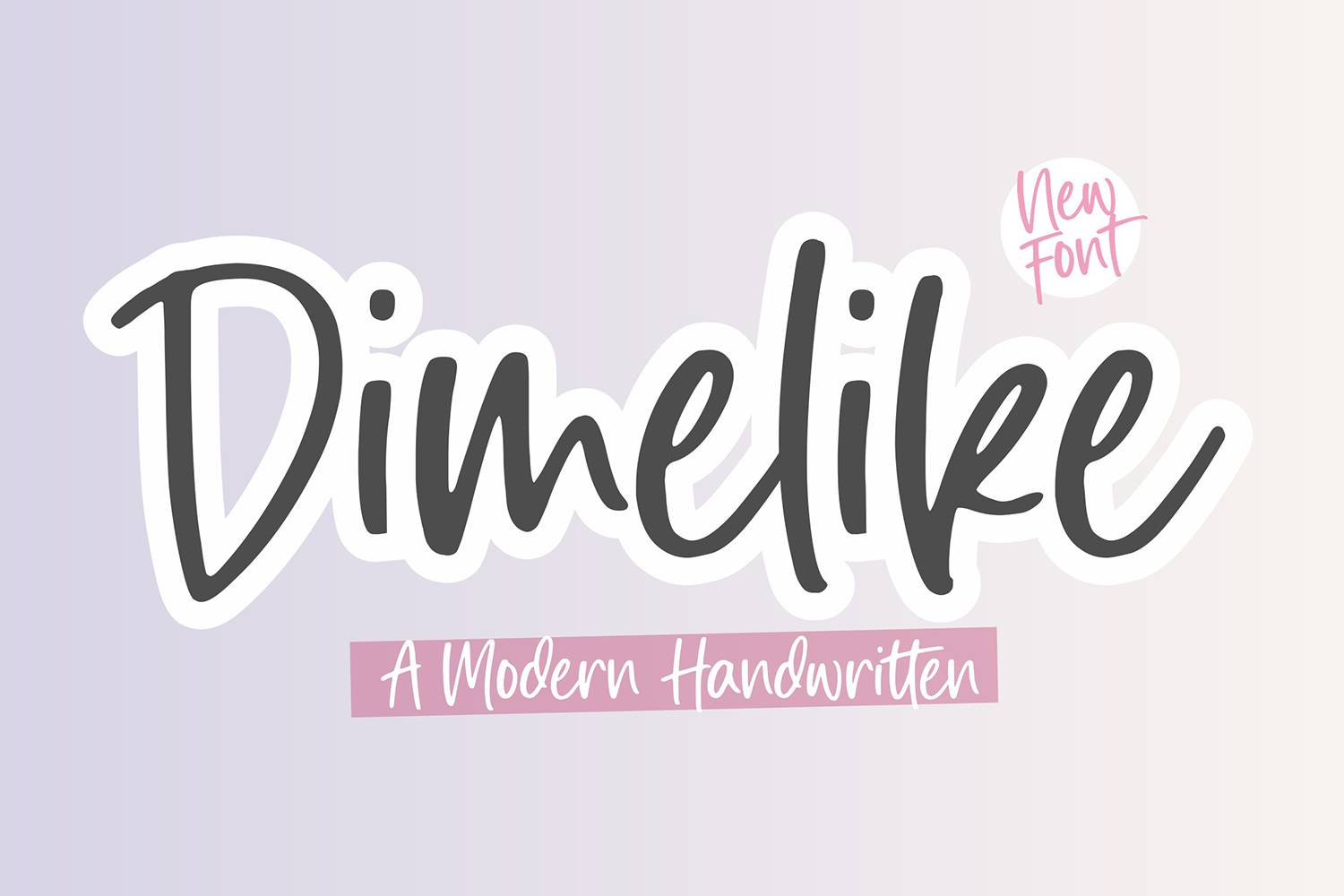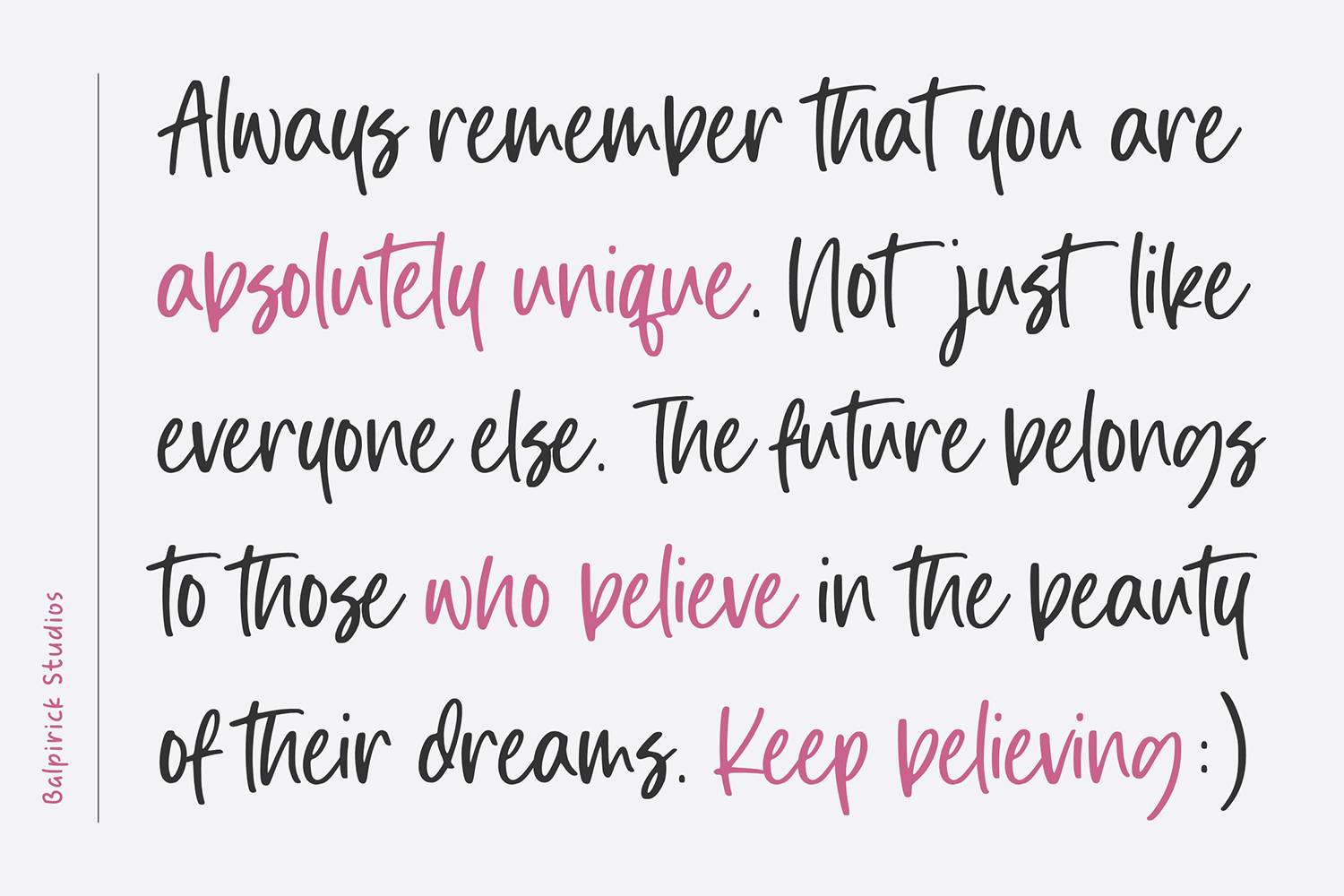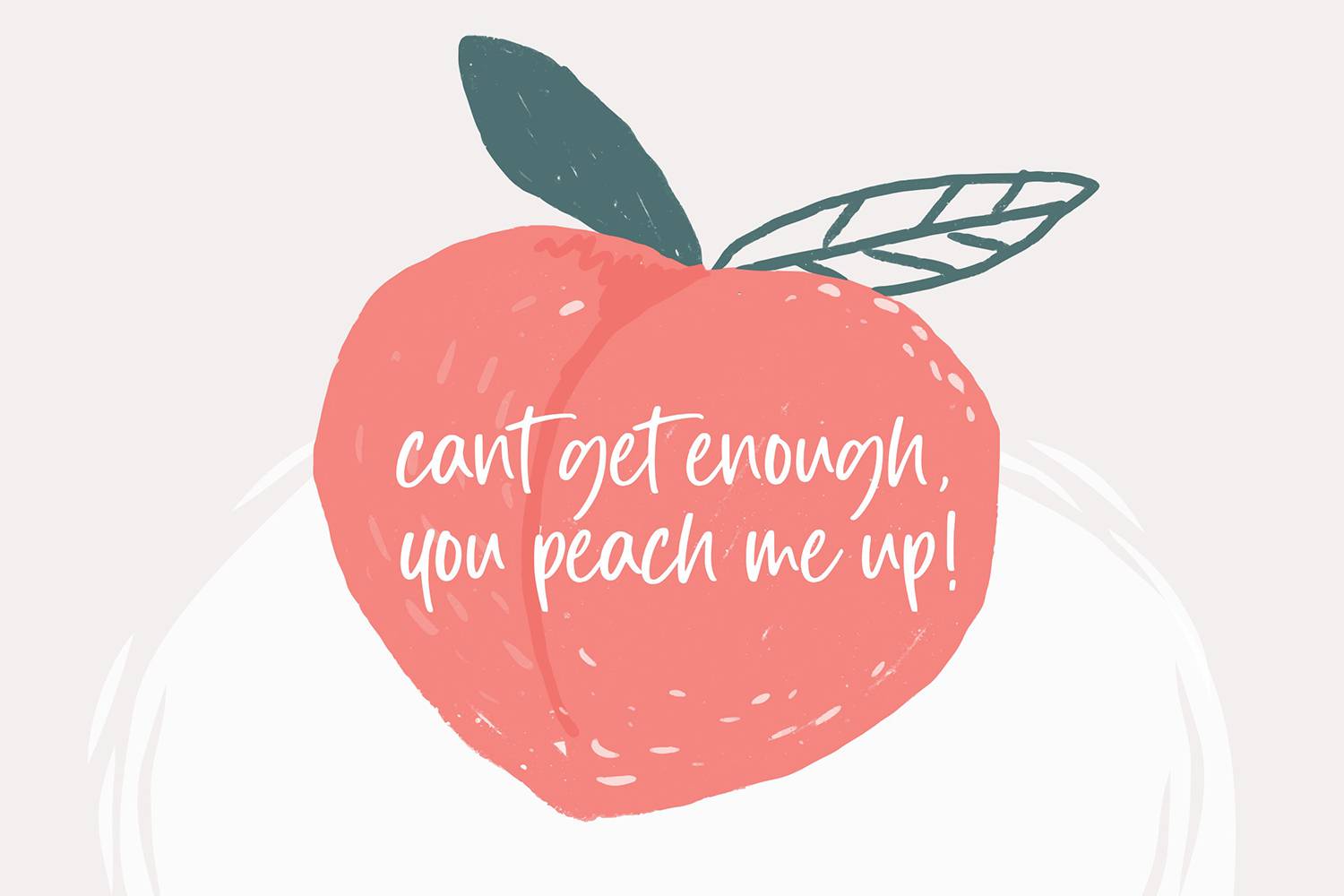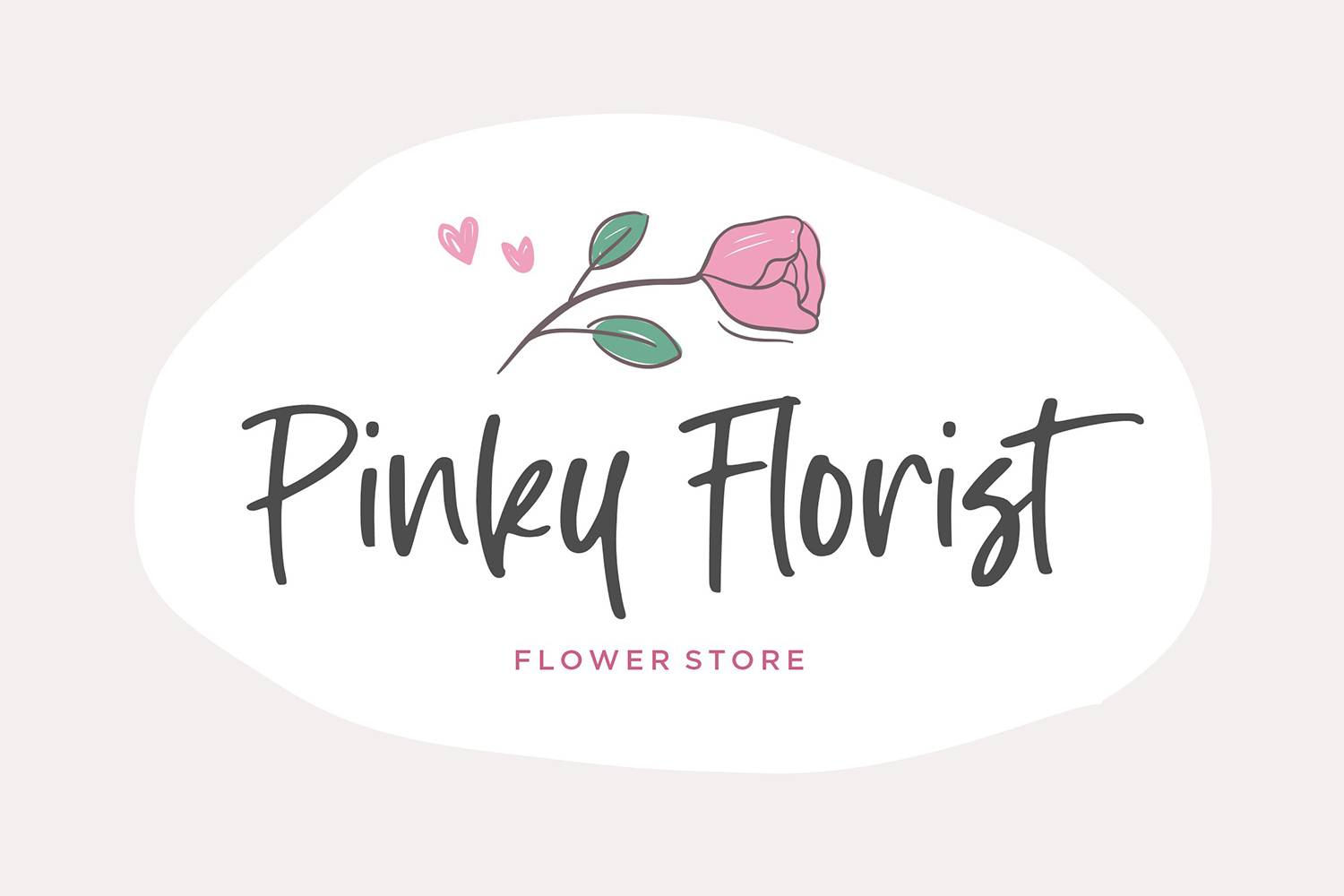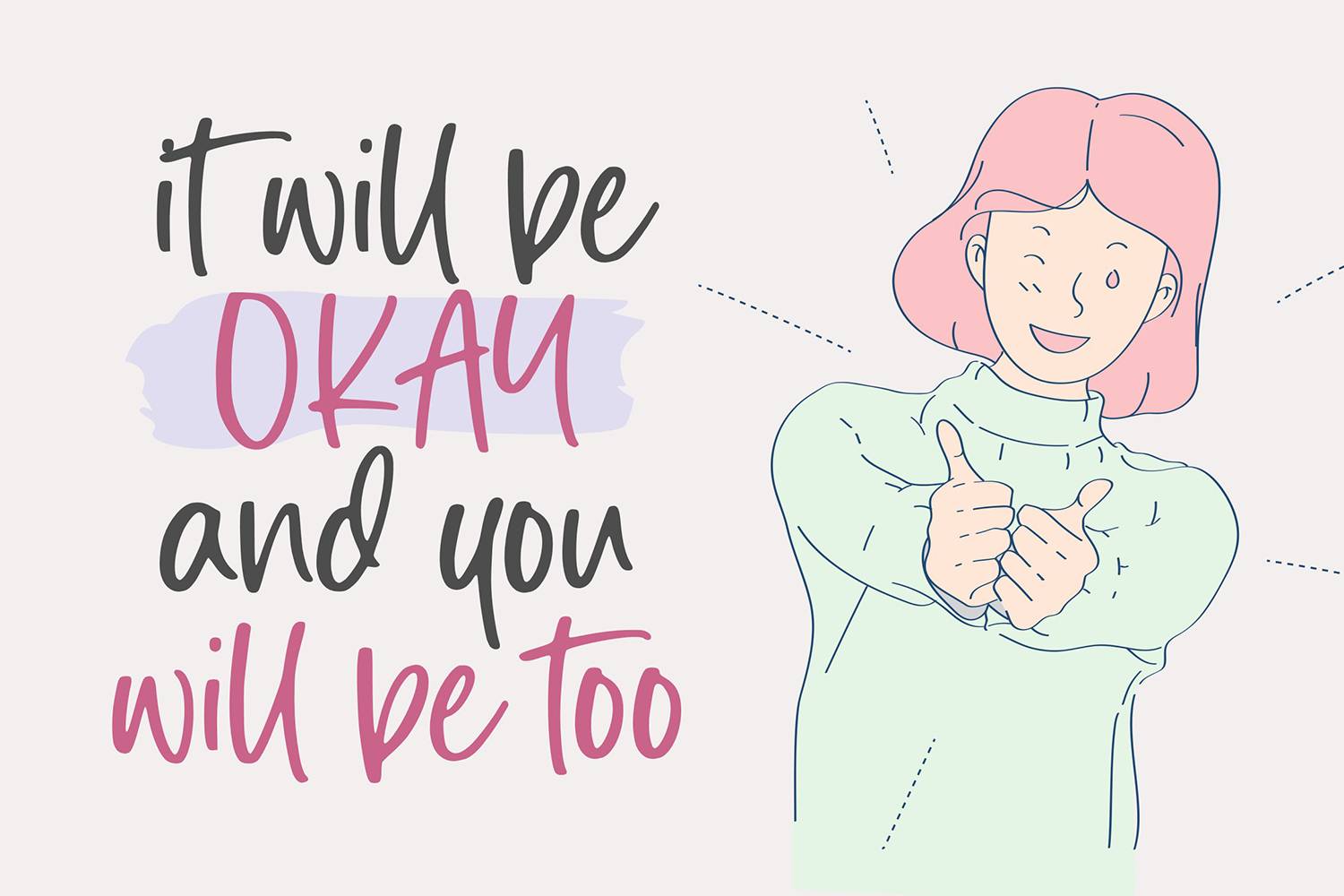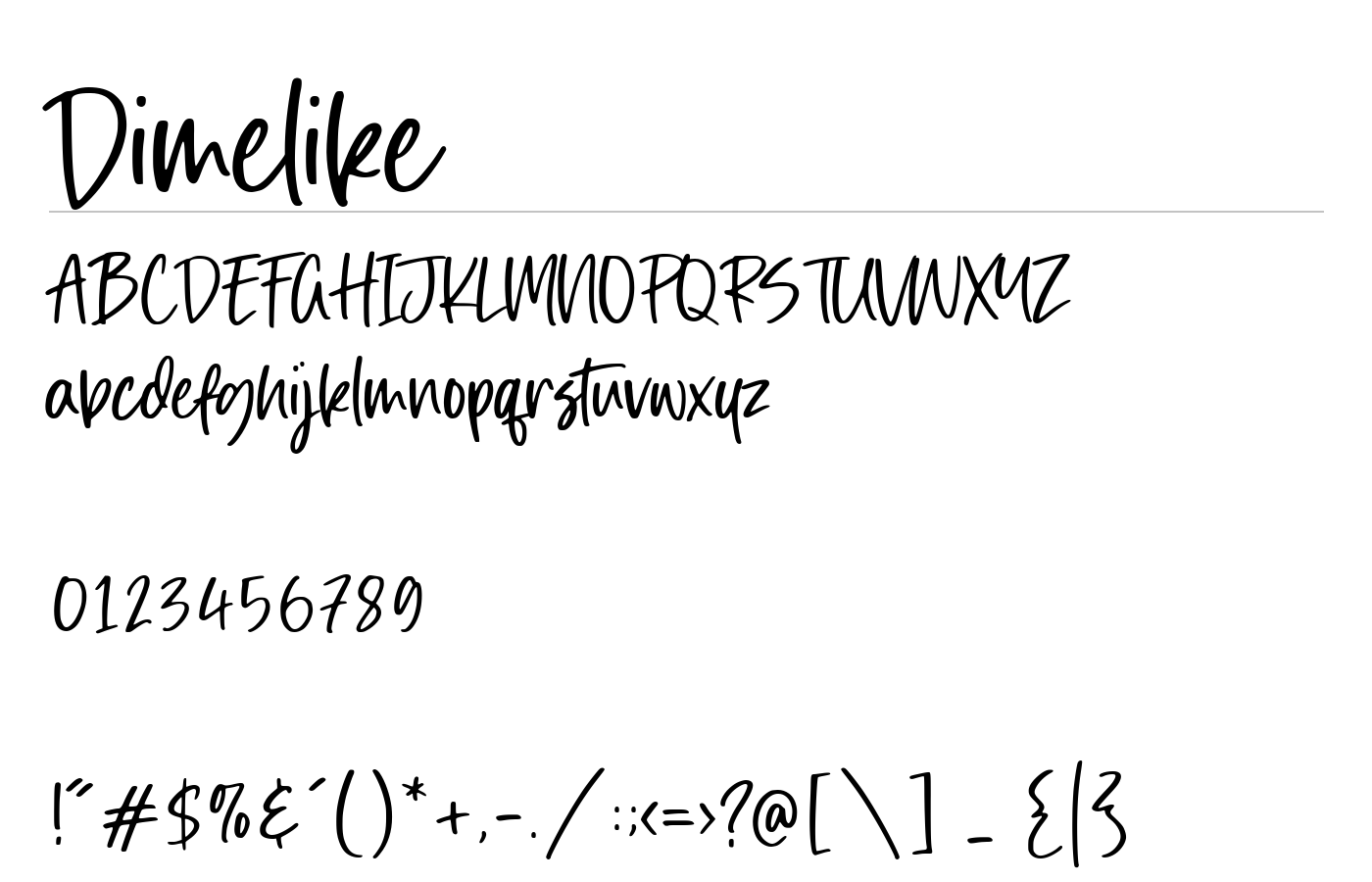
Dimelike is a casual, handwritten script font with a friendly and approachable feel. Its light weight and natural, flowing strokes make it ideal for projects needing a personal touch, such as invitations, branding, and social media graphics. This font works well for creative and informal designs where a warm, informal atmosphere is desired.
Dimelike Font
About Dimelike Font